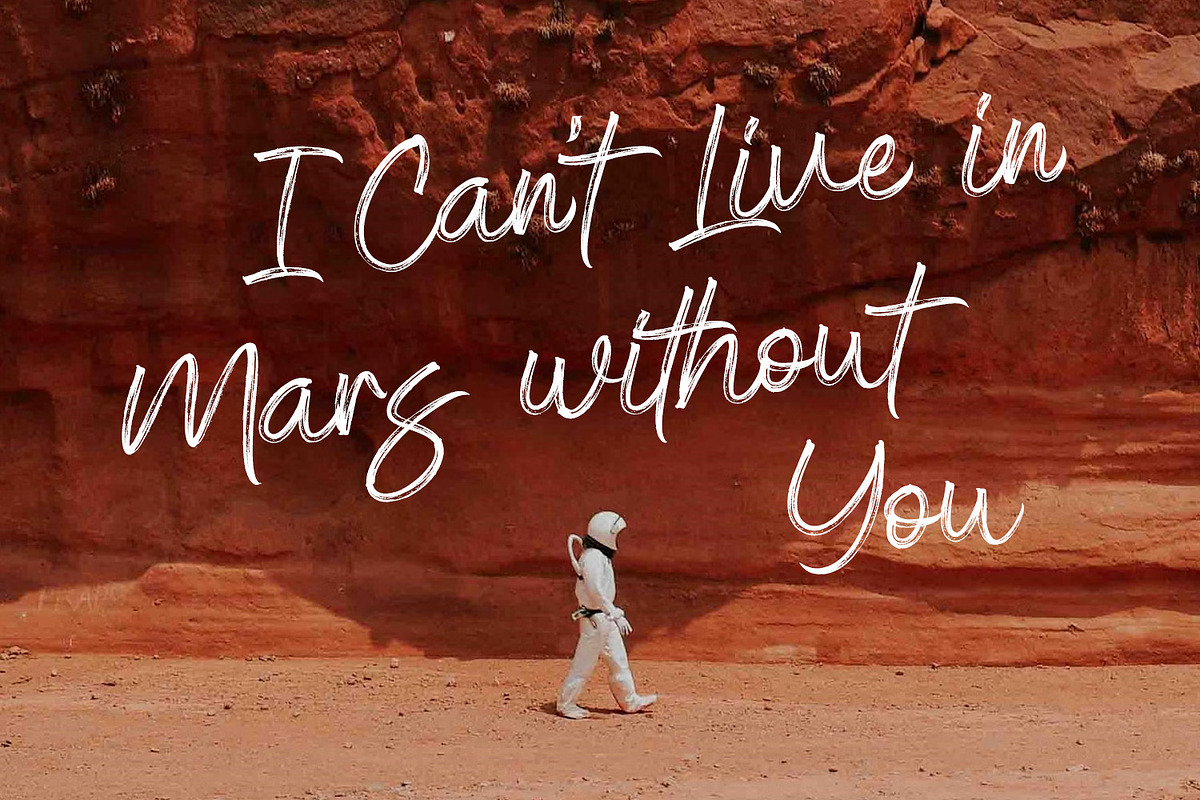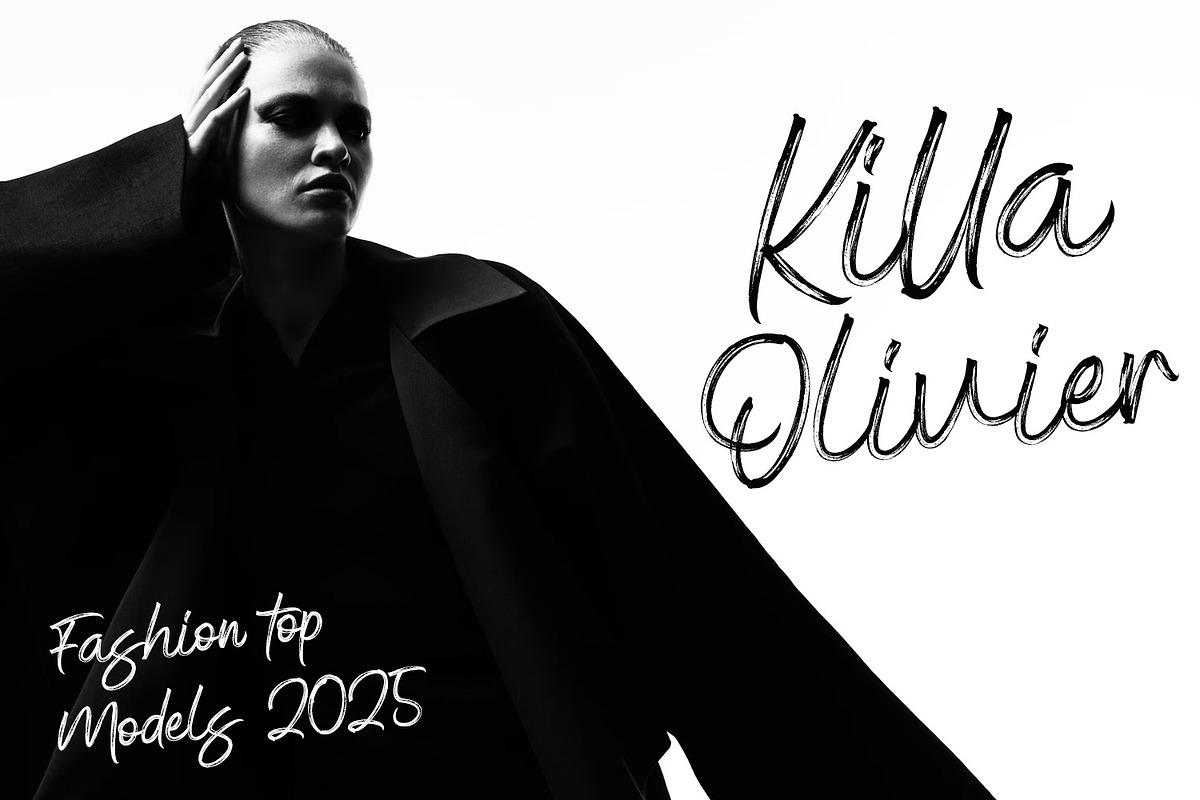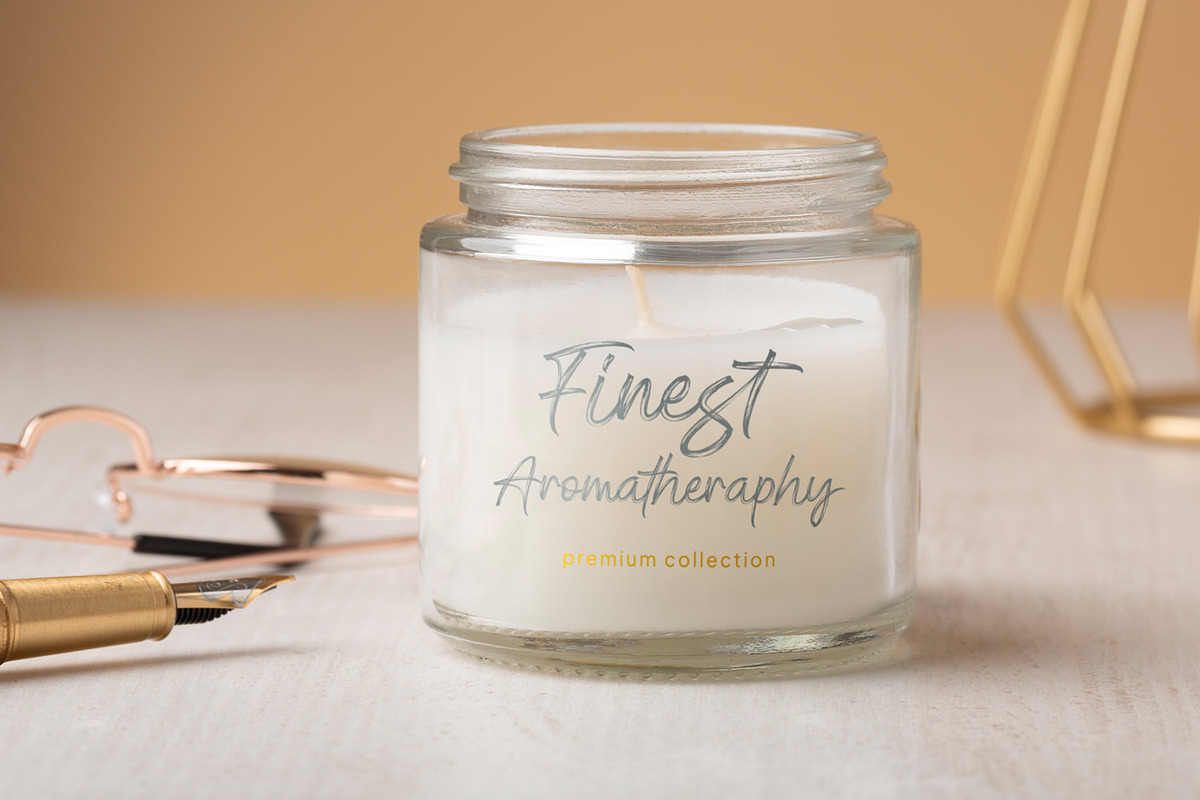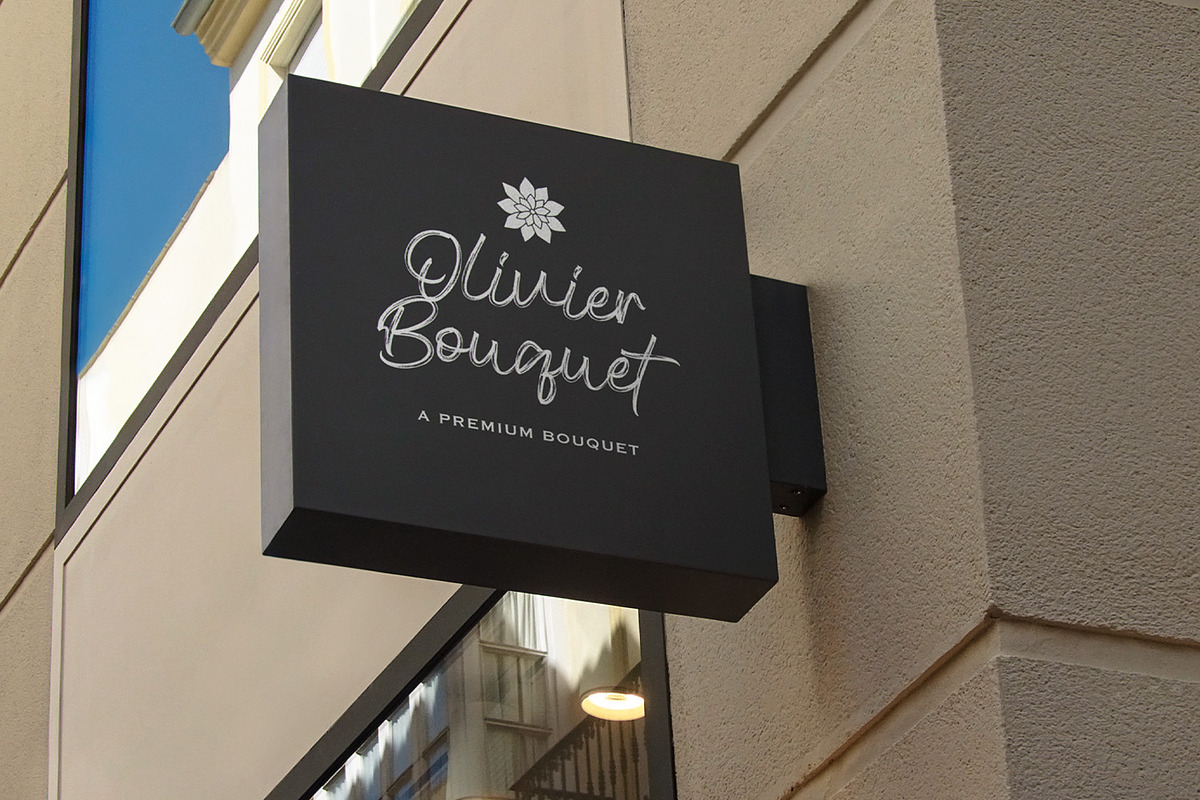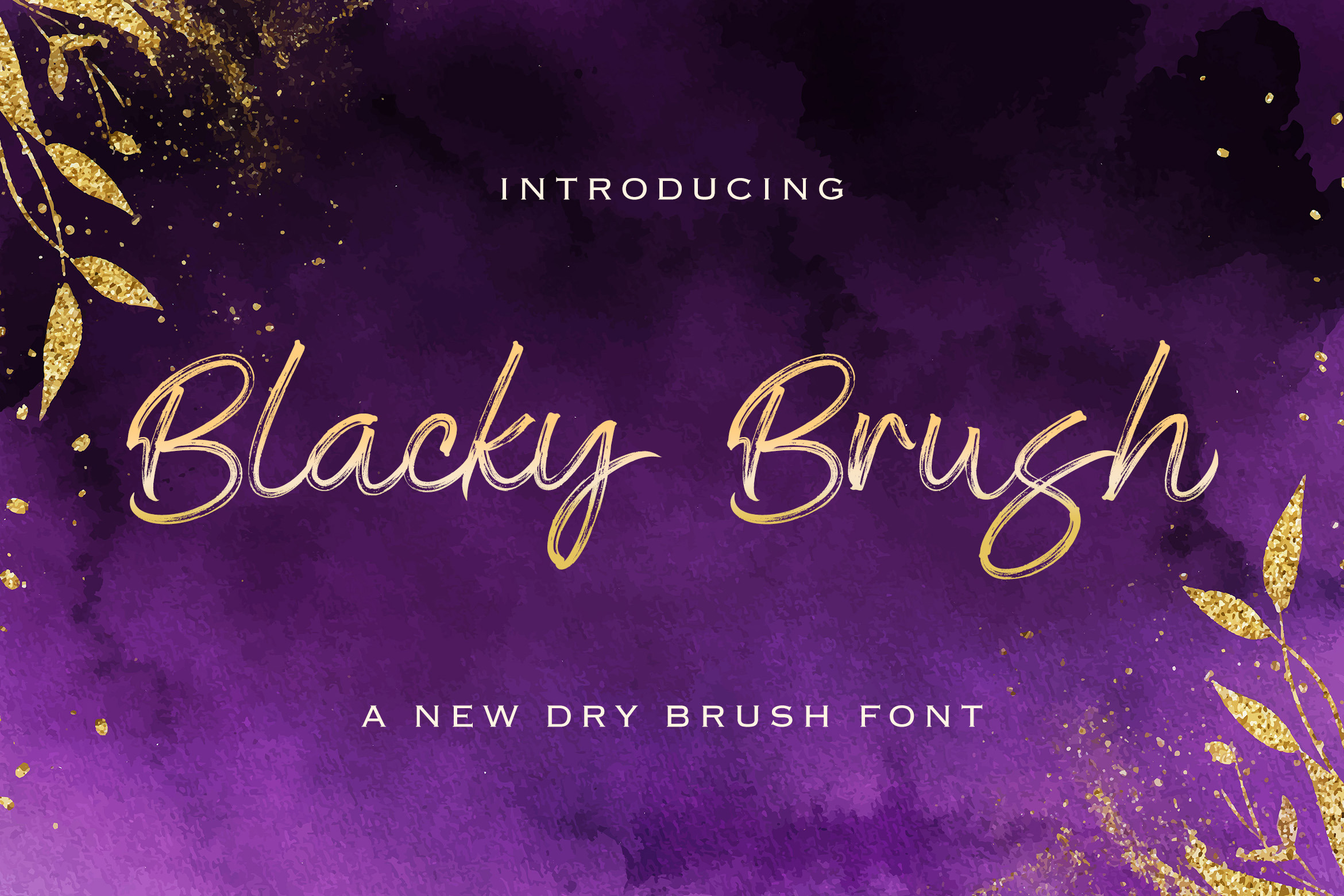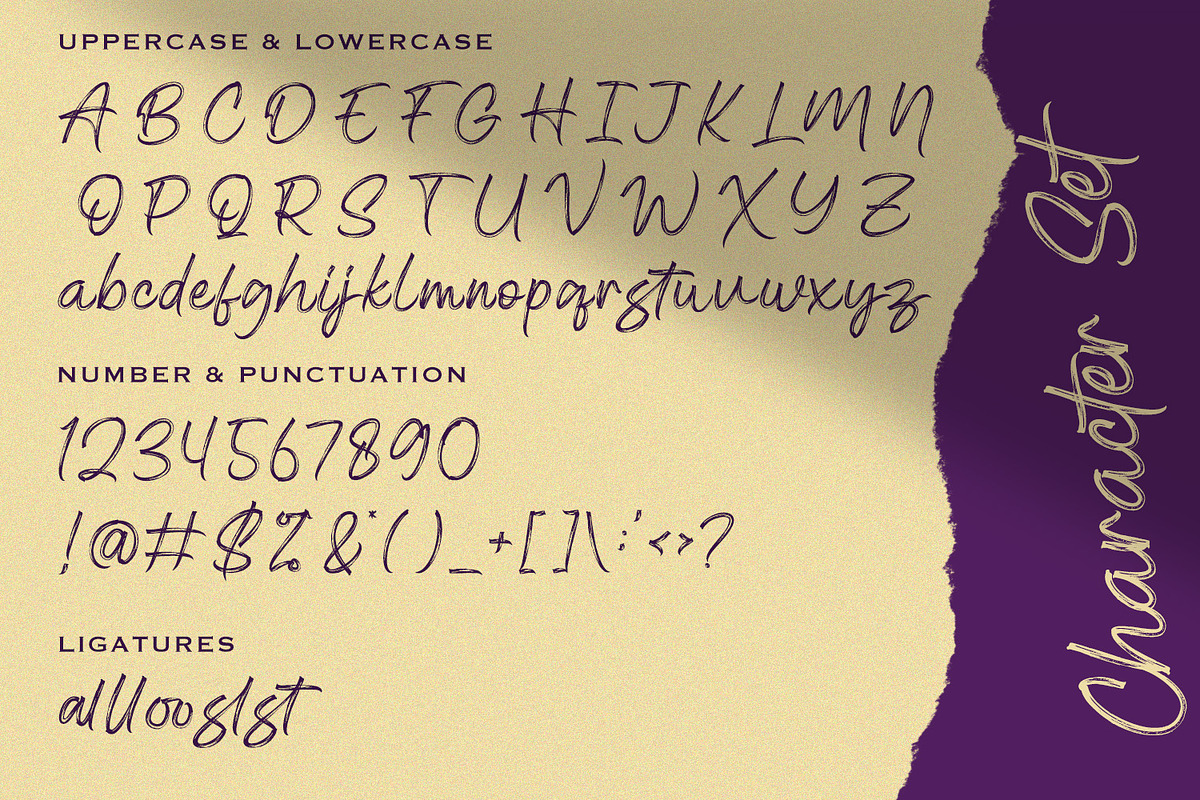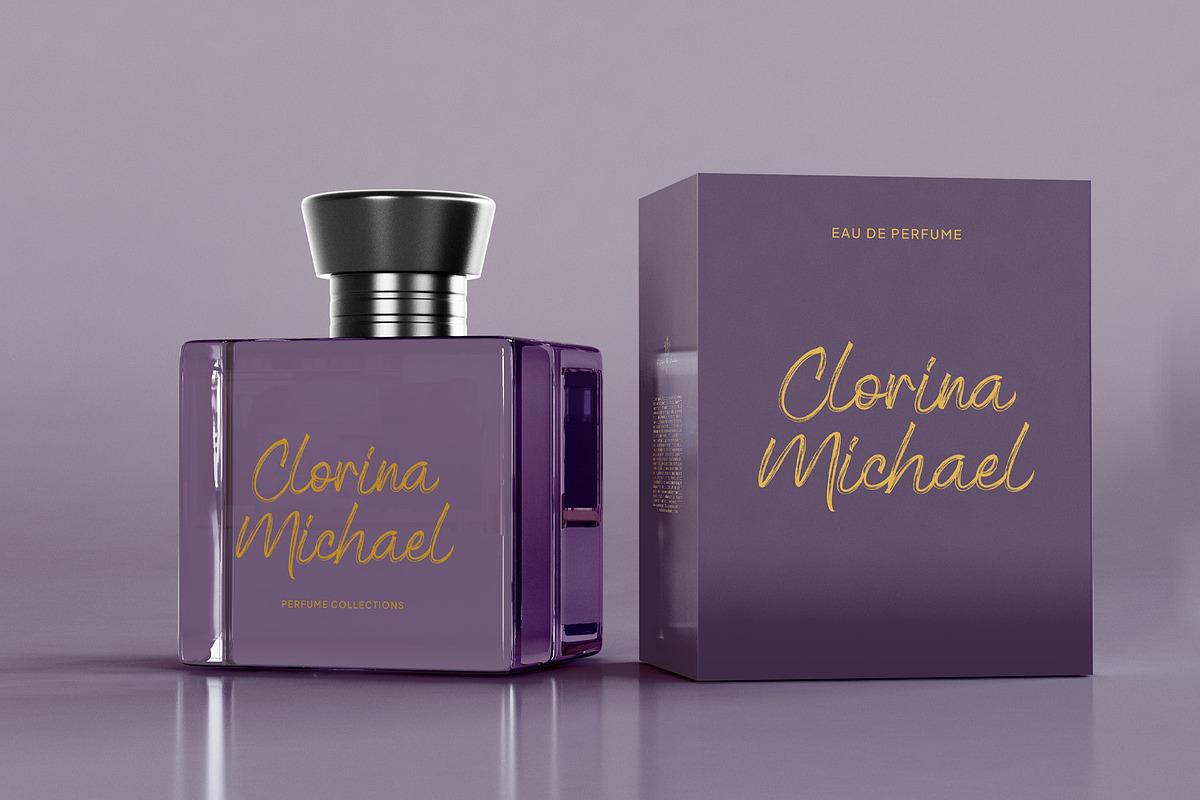
Blacky Brush - Dry Brush Script Font
Blacky Brush is a bold dry brush script font designed to deliver expressive strokes, raw texture, and natural hand-painted energy. Featuring rough edges and organic brush flow, this font creates a powerful handcrafted look that feels artistic, modern, and full of character.
Blacky Brush is perfect for posters, branding, logos, quotes, apparel designs, packaging, social media graphics, album covers, and creative projects that need a strong visual statement. Its dry brush texture adds depth and personality, making each word feel dynamic and alive.
With uppercase and lowercase characters, numbers, punctuation, ligatures, and multilingual support, Blacky Brush offers flexibility for both digital and print use. Whether you are creating bold branding, artistic typography, or expressive layouts, this font brings confidence, creativity, and raw brush charm to your designs.
Blacky Brush is ideal for designers who want a hand-painted script font with bold texture and modern attitude.